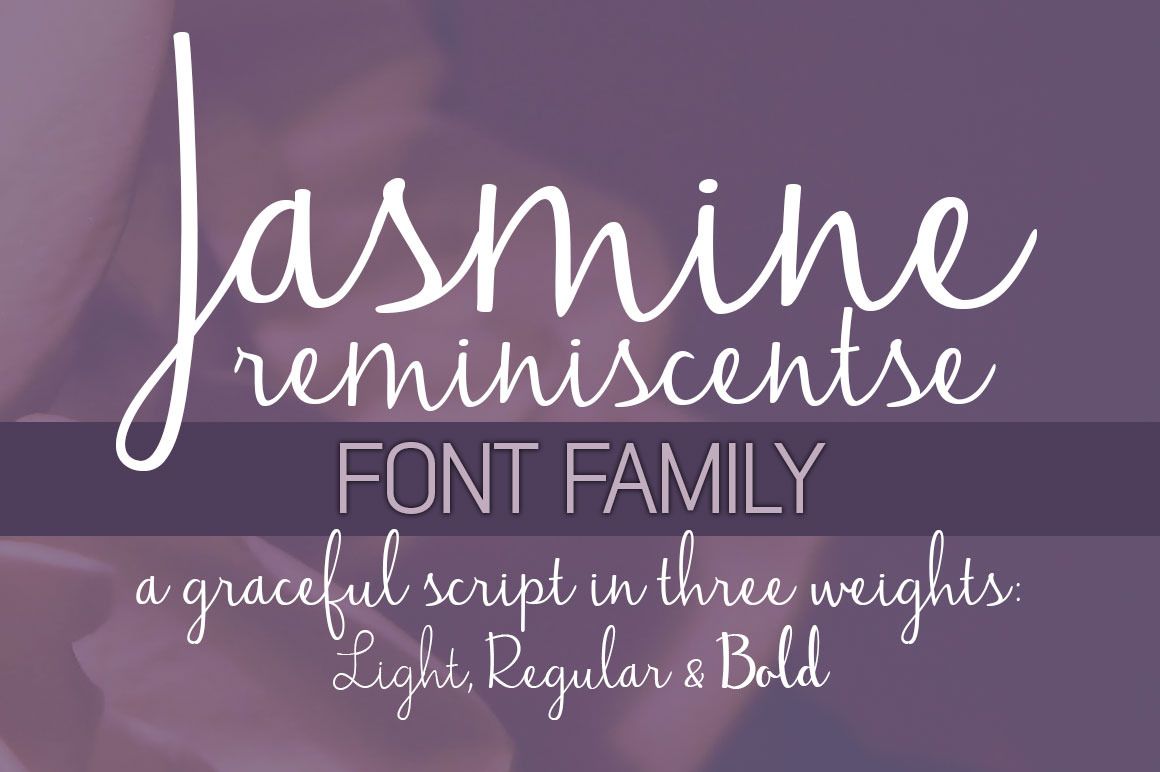
Jasmine Reminiscentse Font Family
Jasmine Reminiscentse is an elegant, smooth & connecting type in 3 weights- light, regular and bold. Get all three for a reduced price.